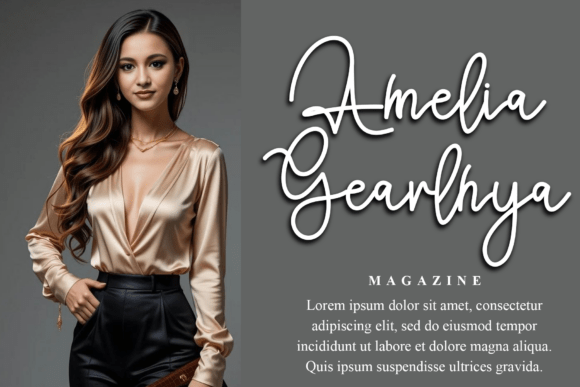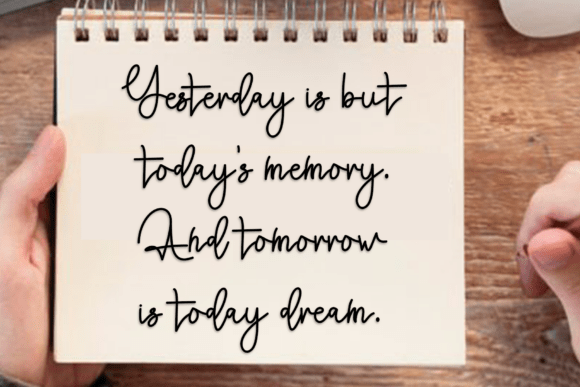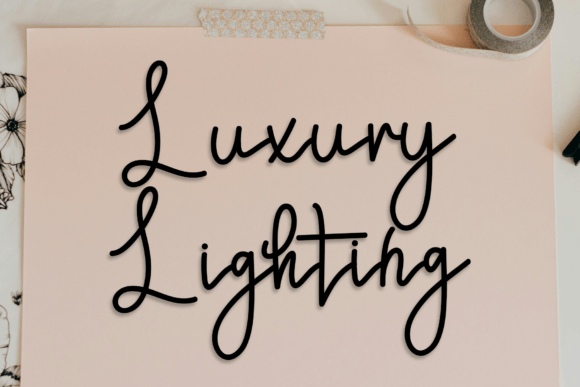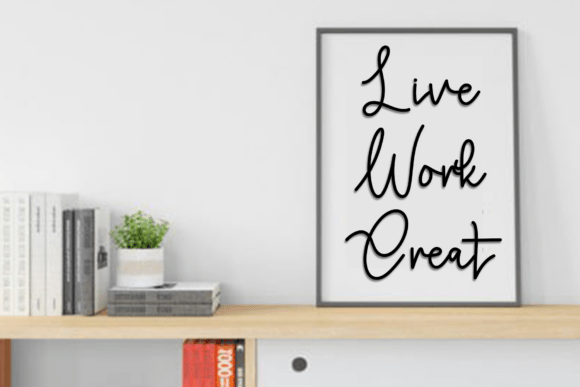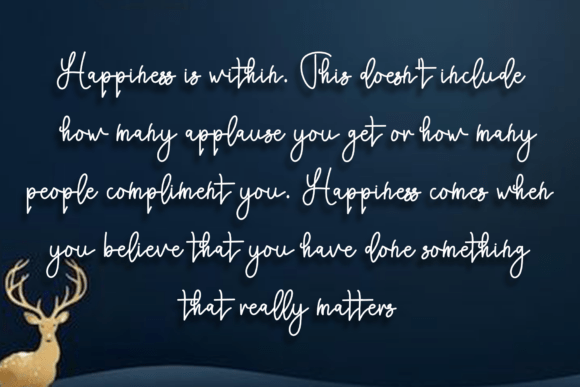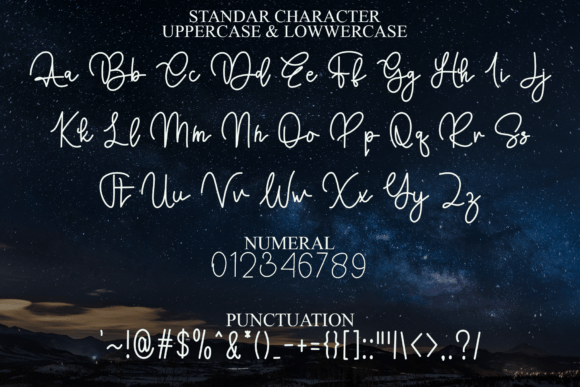
The Magic of Creative Writing Font: A Festive Favorite for Designers
It’s happened to the best of us: you’re working on a holiday project, and no matter how hard you try, you just can’t find the perfect font to capture the spirit of the season. I remember one particularly frustrating design session where I was tasked with creating a festive greeting card for a client. I scoured font websites, tried out dozens of typefaces, but nothing seemed quite right. That was until I stumbled upon the Creative Writing font. ✨
With its decorative elements and whimsical flair, this font adds a touch of enchantment to any design. In this article, we’ll dive into the world of Creative Writing font, exploring its features, how to use it, and what makes it so special.
- ✨ The whimsical and festive design that’s perfect for holiday projects
- 🎉 The font’s ability to bring a cheerful and nostalgic ambiance to my designs
- 👍 The versatility of the font, suitable for greeting cards, gift tags, and more
While Creative Writing font is a stunning addition to any design project, there are a few things to keep in mind: ⚠️
- 🤔 Some users may find the font a bit too ornate for certain projects
- ⚠️ The font’s decorative elements may not be suitable for very formal or professional designs
The Backstory of Creative Writing Font
The Creative Writing font was designed with the holiday season in mind. The designer wanted to create a font that captured the magic and wonder of the holidays, with a touch of nostalgia and whimsy. The result is a font that’s perfect for adding a festive touch to any design project.
Q: Is Creative Writing font suitable for digital use?
A: Yes, Creative Writing font is perfect for digital use, including social media graphics, email templates, and more.